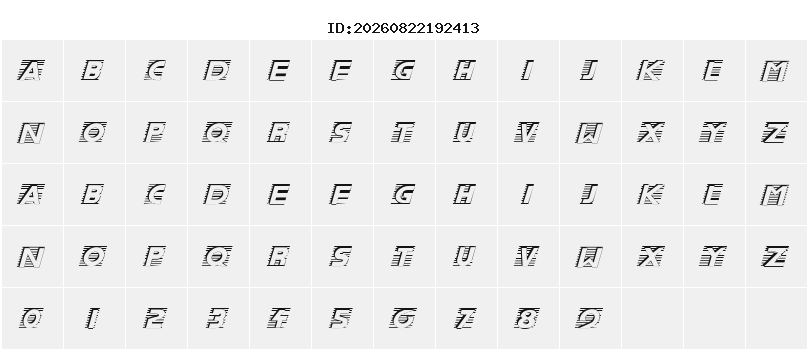
ScanLine Preview
• Font Name: ScanLine
• Full Font Name: ScanLine Regular
About ScanLine.ttf
ScanLine.ttf is a modern, elegant sans-serif font designed for ultimate readability and visual harmony. Perfect for branding, headlines, web design, and print materials.